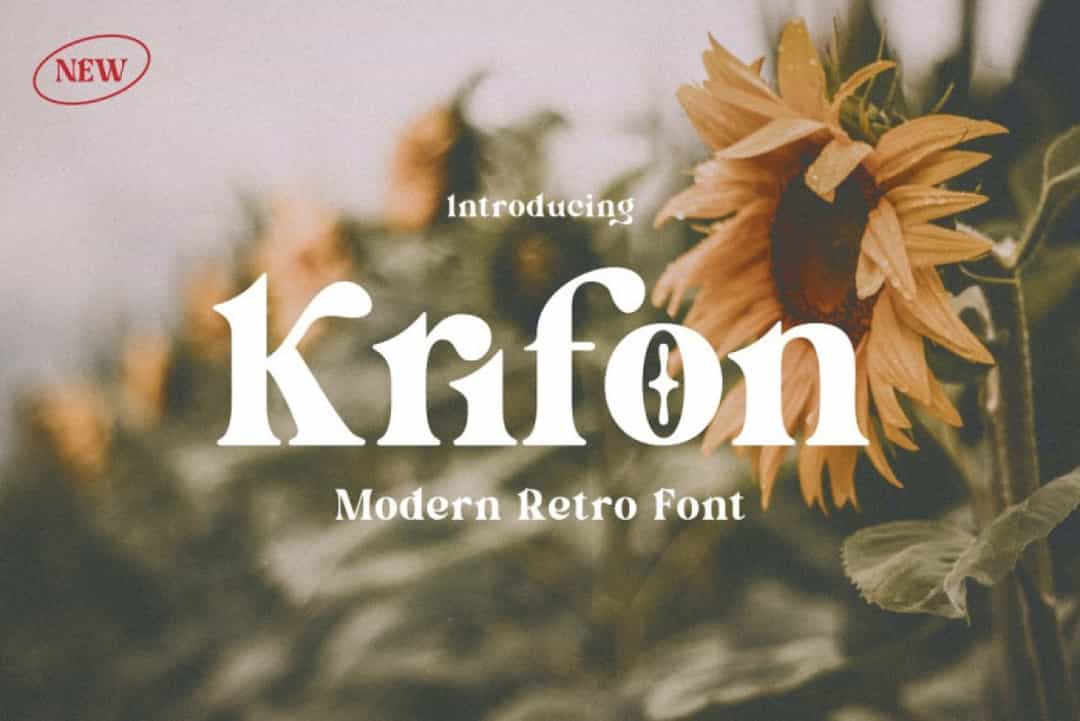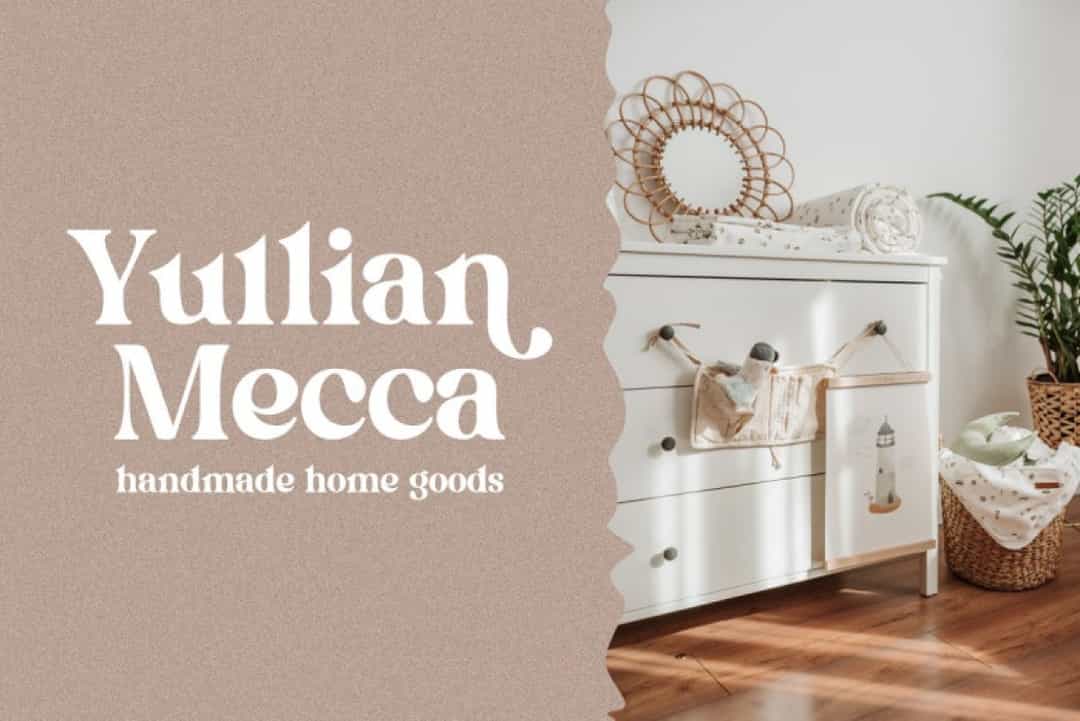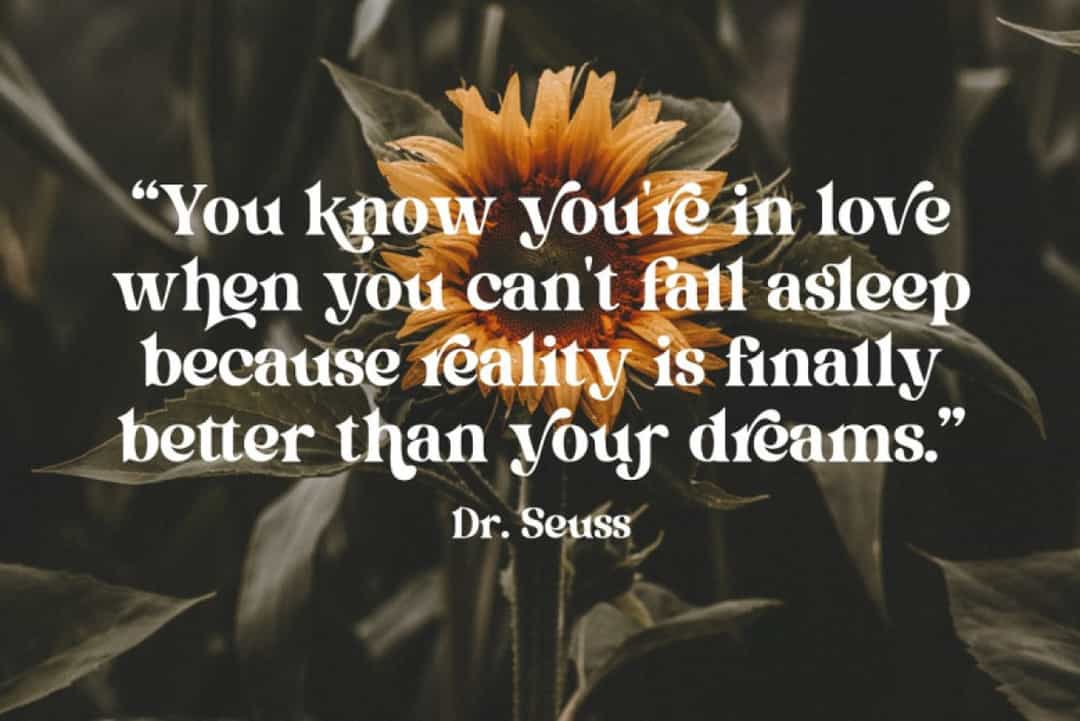
Discover Krifon Font, part of the Serif Retro collection—a versatile and unique font perfect for adding a personal touch to your projects. Download it for free and enjoy crafting designs with style, from invitations to social media posts. This font is available exclusively for personal use, giving you the freedom to create without limits. Unlock your creativity with Krifon Font today!
Krifon is a beautiful and bold serif typeface. Modern with retro influences, this typeface offers ligatures and alternative designs for creating stunning logos as well as quotes, posts, blog posts, branding projects magazine images wedding invitations and much more.